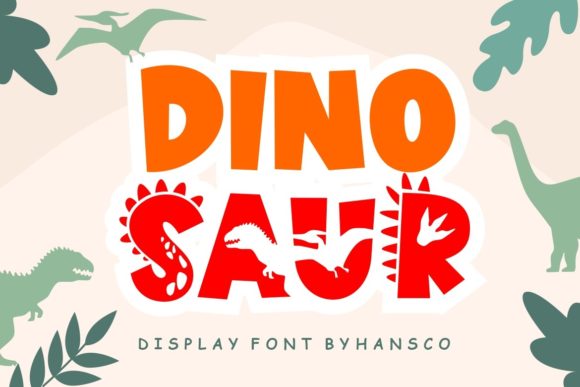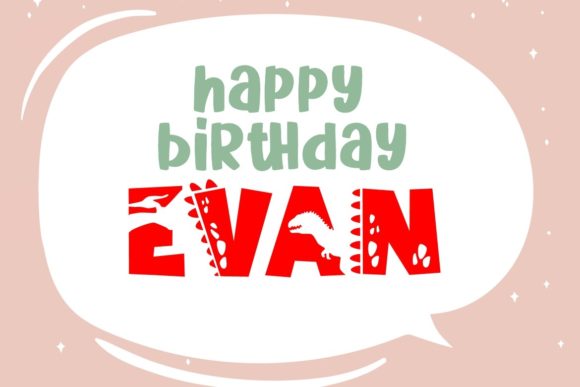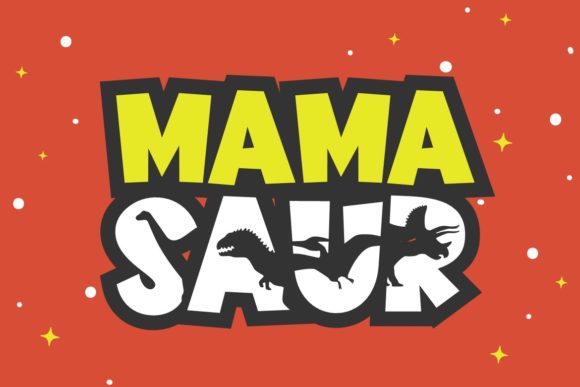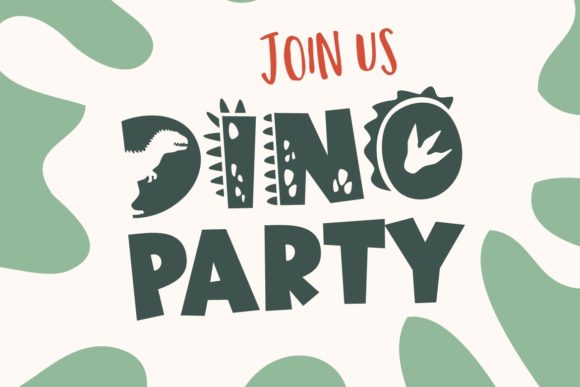
Dinosaur Font Font
About the Dinosaur Font Font
From logos to headlines, the Dinosaur Font Font is the perfect choice for making a lasting impression. Dinosaur is a cool, bold and friendly decorative font, featuring dinosaurs on each character. Whether you are using it for cartoon-related designs, children’s games, quotes, titles, brand names, book covers, posters, or just any creation that requires a touch of beauty, this font is a great choice.
Dinosaur Font excels in headlines, branding for children’s products, posters, and playful marketing materials. Its unique illustrative nature makes it ideal for projects needing a fun, memorable visual impact. However, its low readability makes it unsuitable for body text or UI elements requiring extended reading.
Pair Dinosaur Font with a clean sans-serif like Open Sans for contrast and readability in applications where both playful and clear communication are needed. For a more sophisticated feel, consider pairing it with a classic serif font such as Garamond, letting the Dinosaur Font’s boldness provide a striking counterpoint.
The font’s overall personality is cheerful and bold, conveying a sense of fun and approachability. It’s best suited for brands targeting younger audiences or projects requiring a lighthearted and memorable aesthetic.
Dinosaur Font Font Usage Examples
Dinosaur Font Font Example